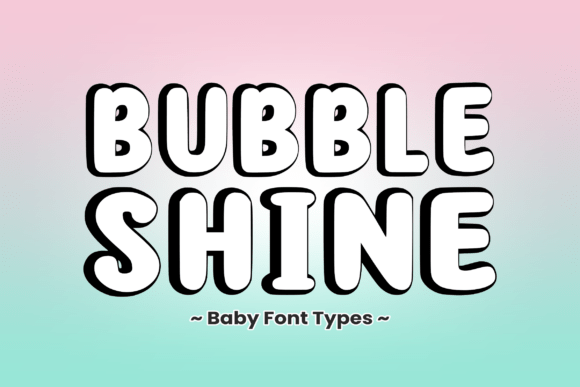
Unveiling the Delightful World of Bubble Shine Font
Have you ever been in the middle of a design project, and suddenly, you just can’t seem to find the right font? I recall a particularly frustrating moment when I was working on a client’s request for a custom t-shirt design. The client wanted something fun, playful, and bubbly, but I just couldn’t seem to find the perfect match. That’s when I stumbled upon the charming Bubble Shine font, and it completely transformed my design game!
A Personal Review of Bubble Shine Font
As a designer, I’m always on the lookout for fonts that can add a touch of personality to my projects. Here’s my honest review of Bubble Shine Font:
- ✨ Its delightful and bubbly aesthetics make it perfect for sublimation designs, animations, and comic titles.
- ✅ The font’s sweetness and charm make it effortlessly identifiable and versatile.
- 💕 It’s an ideal choice for infusing creativity into various items such as t-shirts, mugs, and tote bags.
- 🤔 Some characters may appear a bit condensed, which could affect legibility at smaller font sizes.
- ⚠️ The font’s playful nature might not make it suitable for more formal or professional designs.
The Designer Inspiration Behind Bubble Shine Font
The story behind Bubble Shine Font is one of creativity and inspiration. According to the font’s designer, the inspiration came from a combination of childhood memories and a love for bubbly, playful typography. The goal was to create a font that’s both fun and functional, perfect for designers who want to add a touch of whimsy to their projects.
| Font Name | Bubble Shine Font |
| Author | TaralArt |
| What is Bubble Shine Font best used for? | Bubble Shine Font is ideal for sublimation designs, animations, comic titles, and other creative projects where a playful, bubbly aesthetic is desired. |
| Is Bubble Shine Font suitable for formal designs? | No, Bubble Shine Font’s playful nature makes it more suitable for informal and creative projects. |
| Does Bubble Shine Font support OpenType features? | Yes, Bubble Shine Font supports OpenType features, glyphs, and stylistic alternates, making it a versatile font for creative projects. |